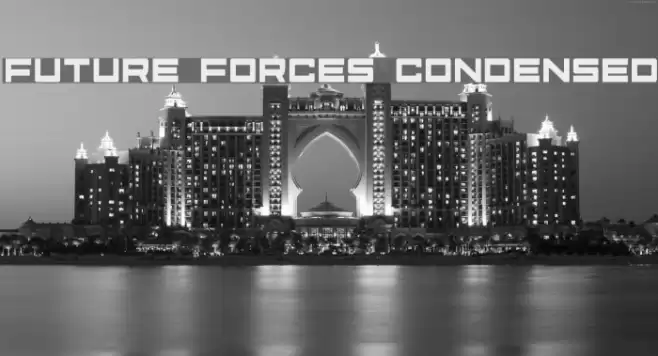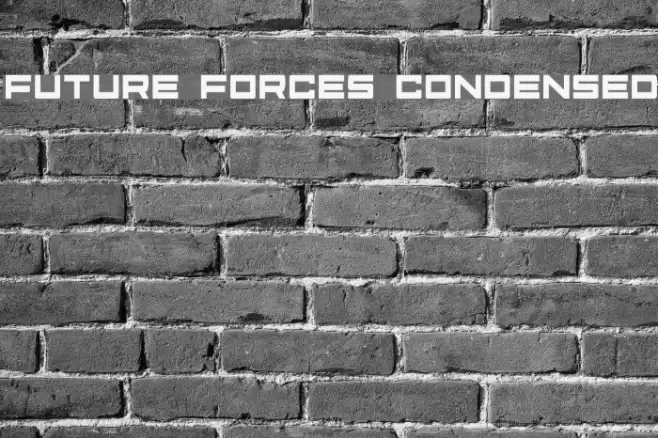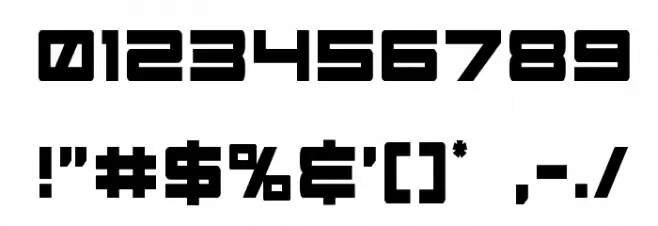
Future Forces Condensed Font
Future Forces Condensed Description
This font features a futuristic and bold design, characterized by its geometric and angular letterforms. The characters are condensed, giving a compact appearance that enhances its modern aesthetic. The uppercase letters are uniform in height, while the lowercase letters maintain a similar structure, ensuring consistency across the typeface. The numerals and special characters follow the same design principles, with sharp edges and a strong presence. This font is ideal for projects that require a contemporary and impactful look.
A futuristic, bold, and condensed font with geometric and angular design from Uncategorized fonts.
- Proposed Projects: Ideal for sci-fi themed designs, technology branding, video game interfaces, and modern posters.